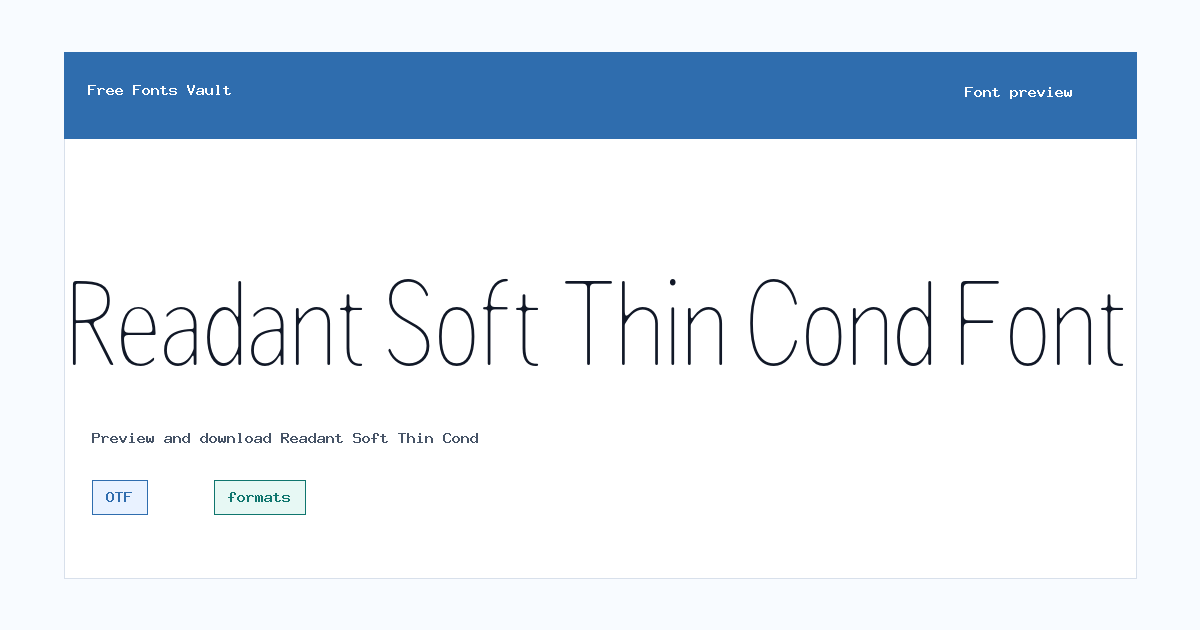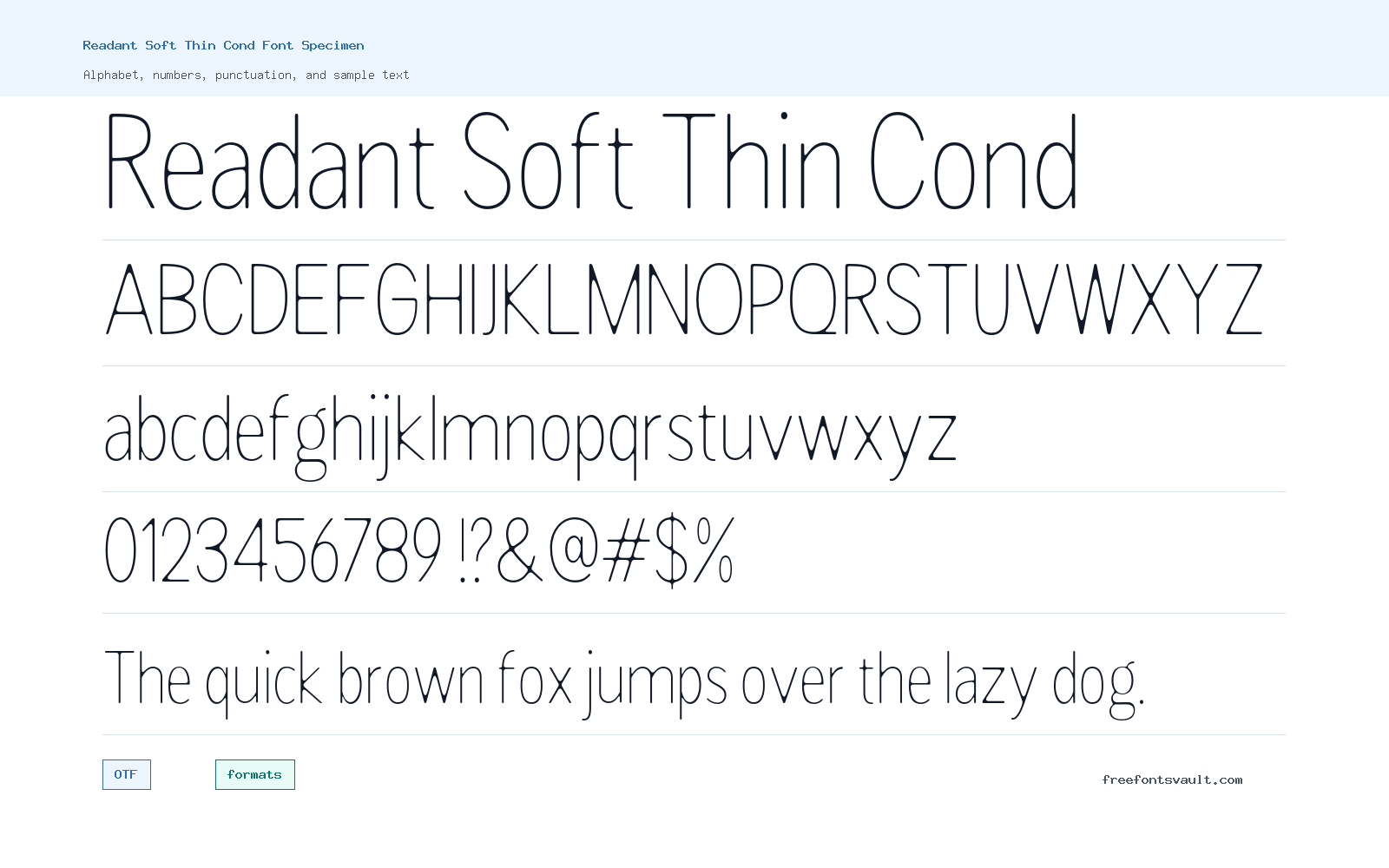
Readant Soft Thin Cond
- Designer Rastype
Readant Soft Thin Cond font.
Readant Soft Thin Cond is a narrow, very light member of the Readant family, made for clean previews where space is tight and the text needs a soft sans serif feel.
About Readant Soft Thin Cond
Readant is a contemporary humanist sans serif with open letterforms, balanced proportions, and a warm, clear tone. This Soft Thin Cond style keeps that readable sans serif direction but uses a condensed width and a 100 weight, so it appears slim, upright, and space-saving. The result works best in short runs of text where the thin strokes can stay visible, such as headings, labels, navigation samples, interface mockups, and refined display typography.
- Thin 100-weight sans serif style with a condensed width
- Soft humanist sans serif character drawn from the Readant family direction
- Useful for short headings, UI mockups, web layout previews, and clean display text
- Minimal headings and title treatments
- Website and app interface mockups
- Compact labels, menu items, and dashboard-style text
- Personal design experiments and typography previews
For the clearest result, use Readant Soft Thin Cond at medium to large sizes with generous contrast. Avoid using the thin condensed style for small body copy, dense paragraphs, or backgrounds where fine strokes may disappear.
What kind of font is Readant Soft Thin Cond?
It is a thin, condensed sans serif style from the Readant family direction, with a clean humanist look suited to short text and interface-style previews.
Can I use it for body text?
It is better for headings, labels, and short display text. Because the weight is very light and condensed, long paragraphs may be harder to read, especially at small sizes.
Who designed Readant?